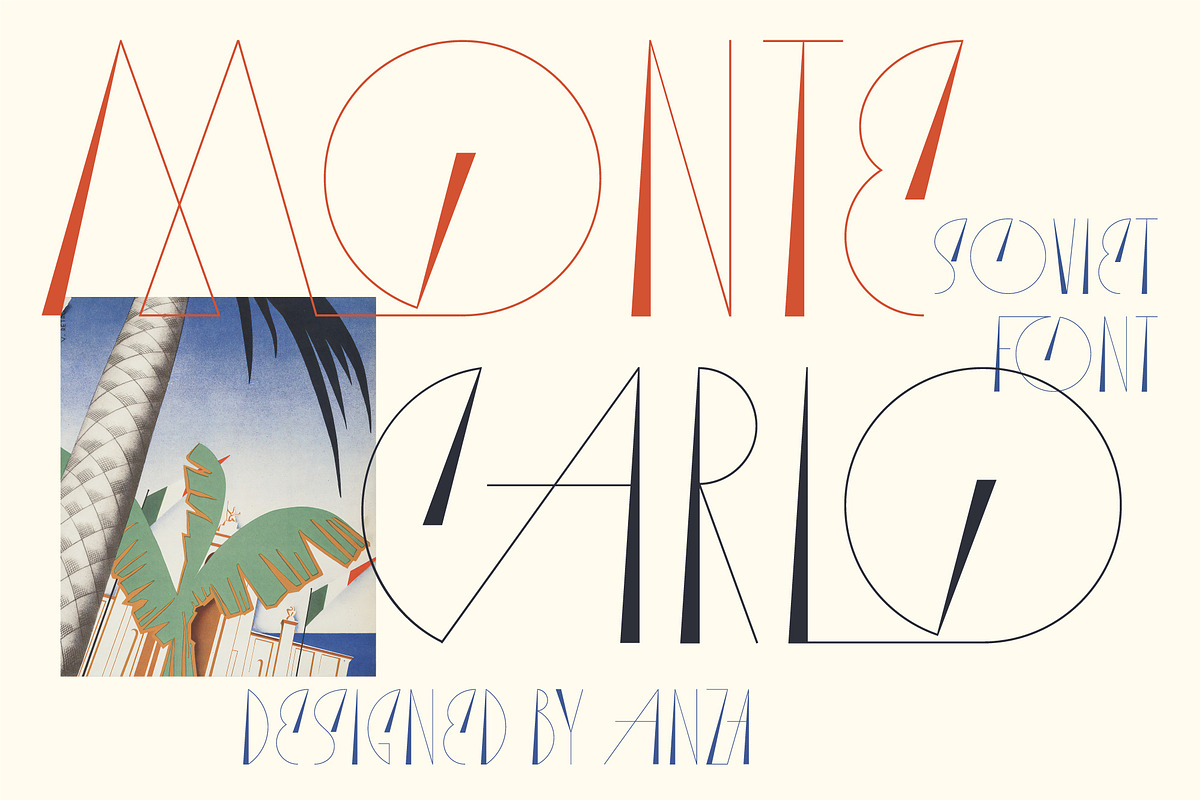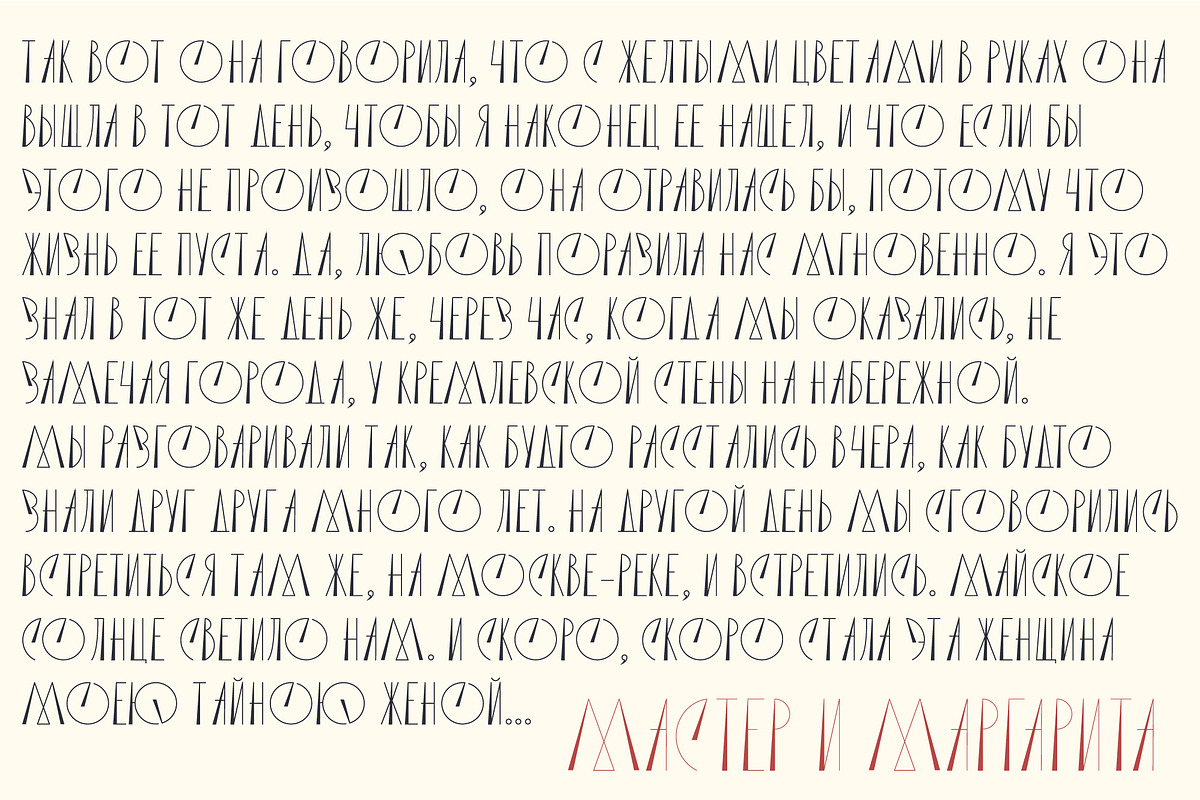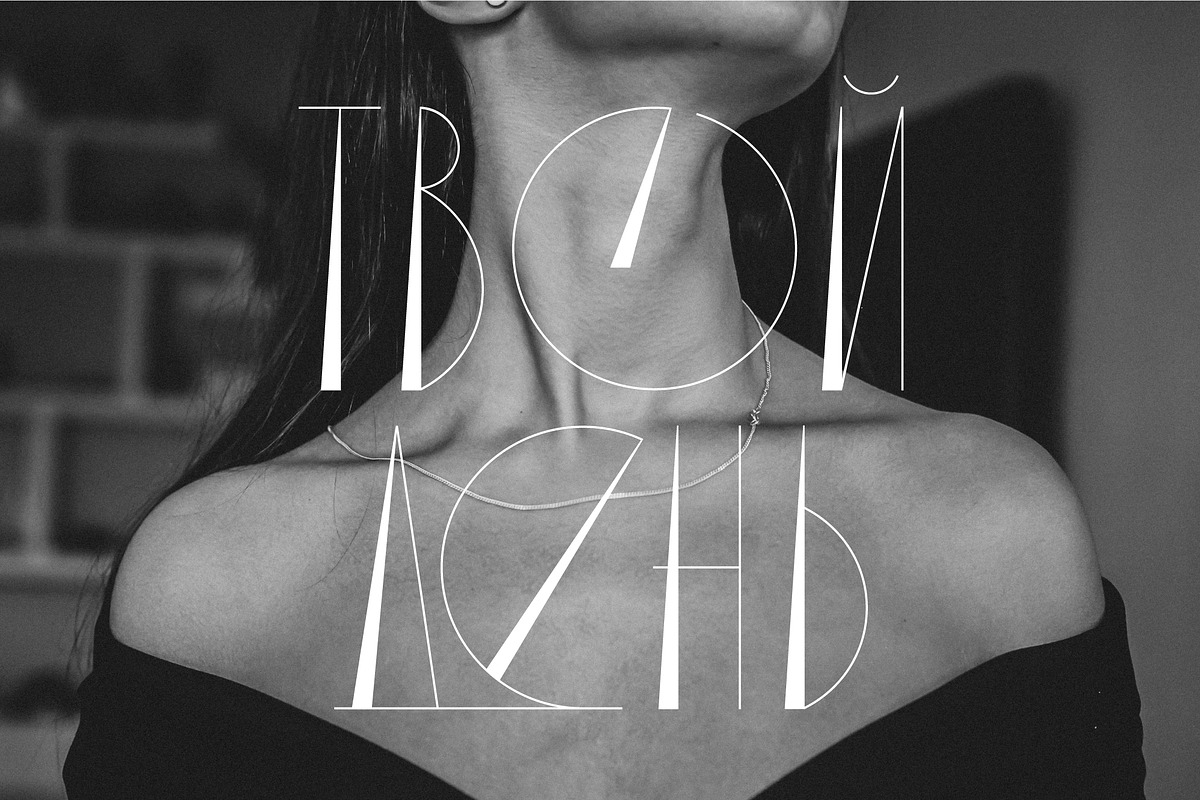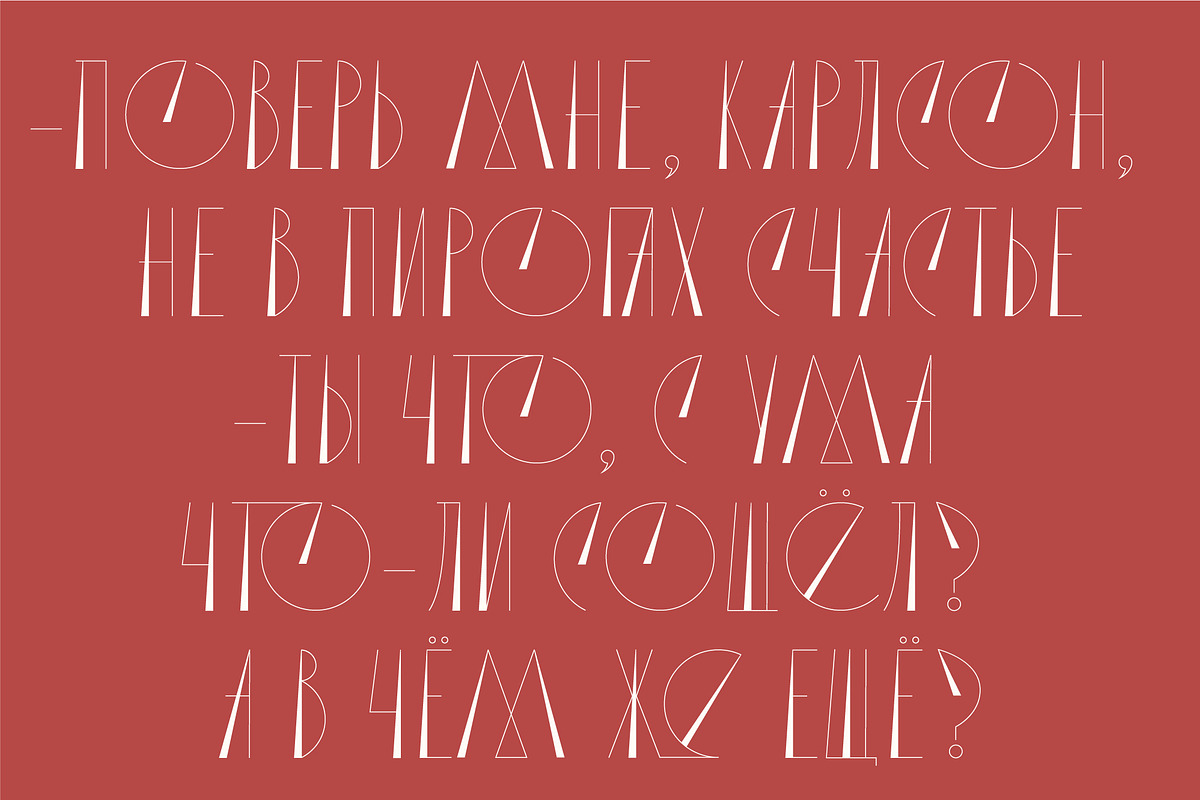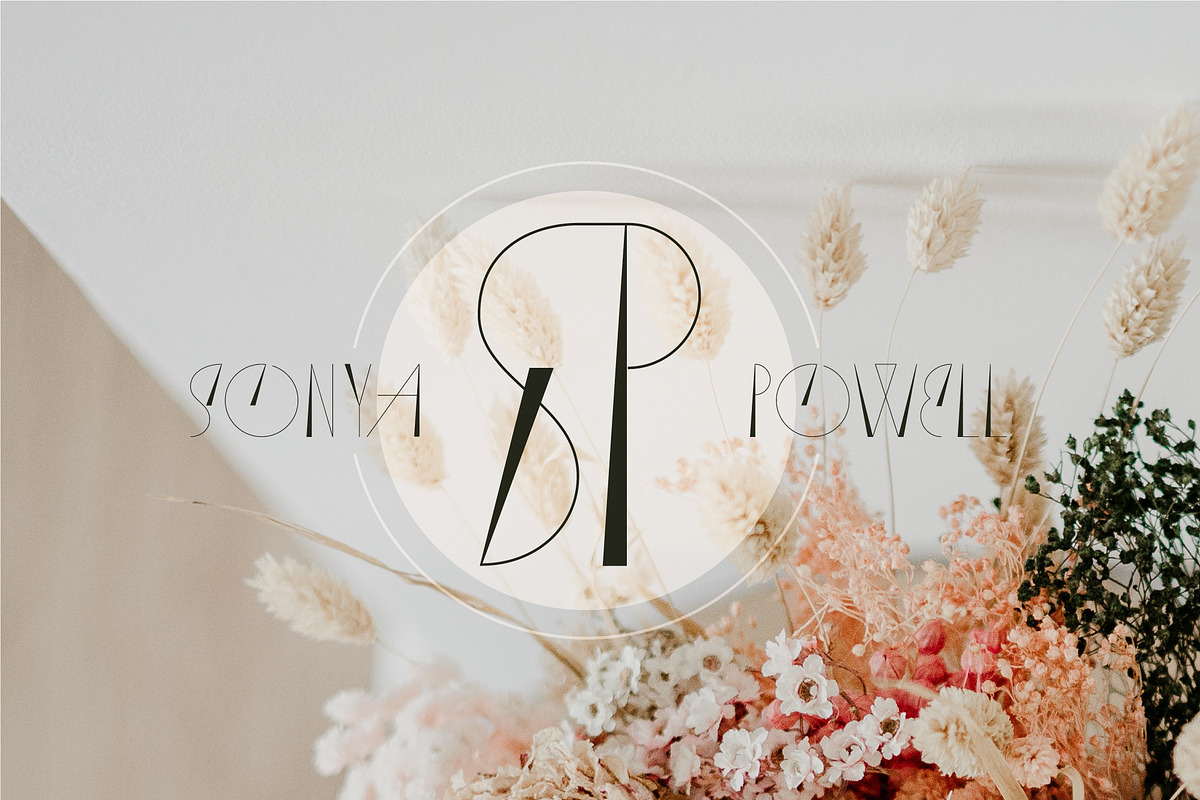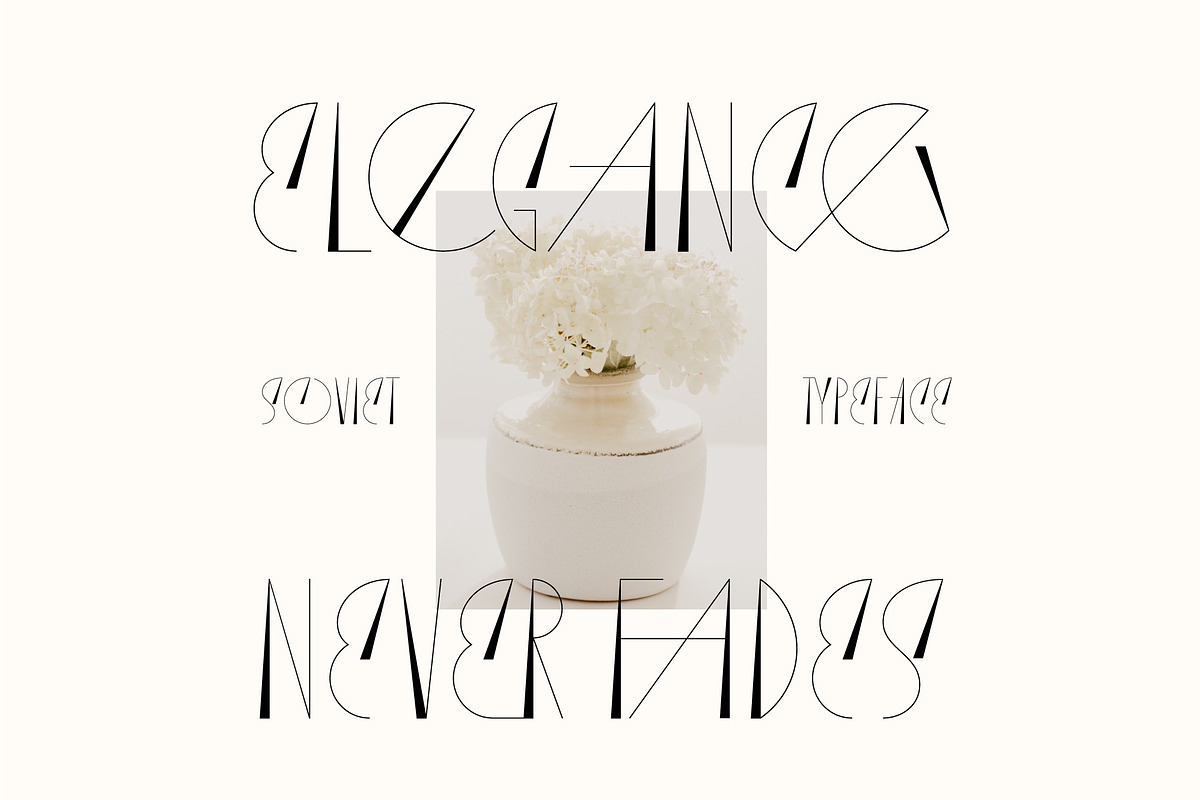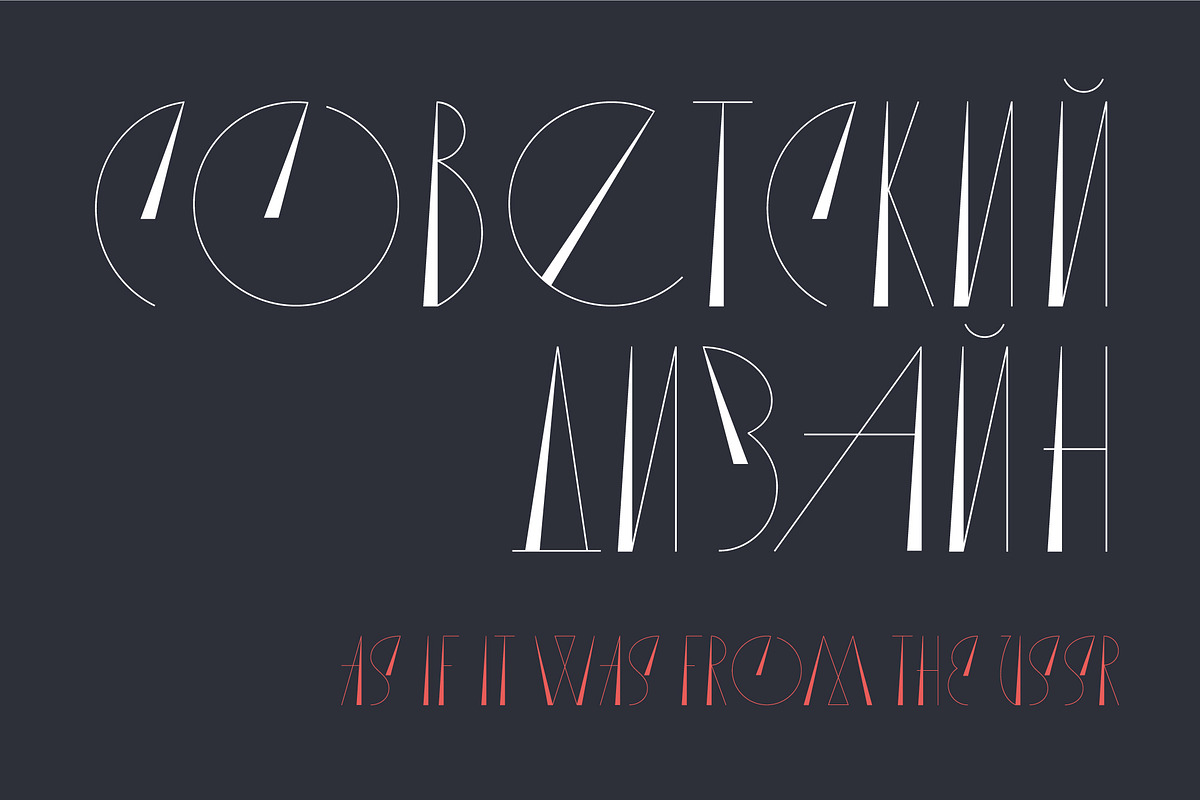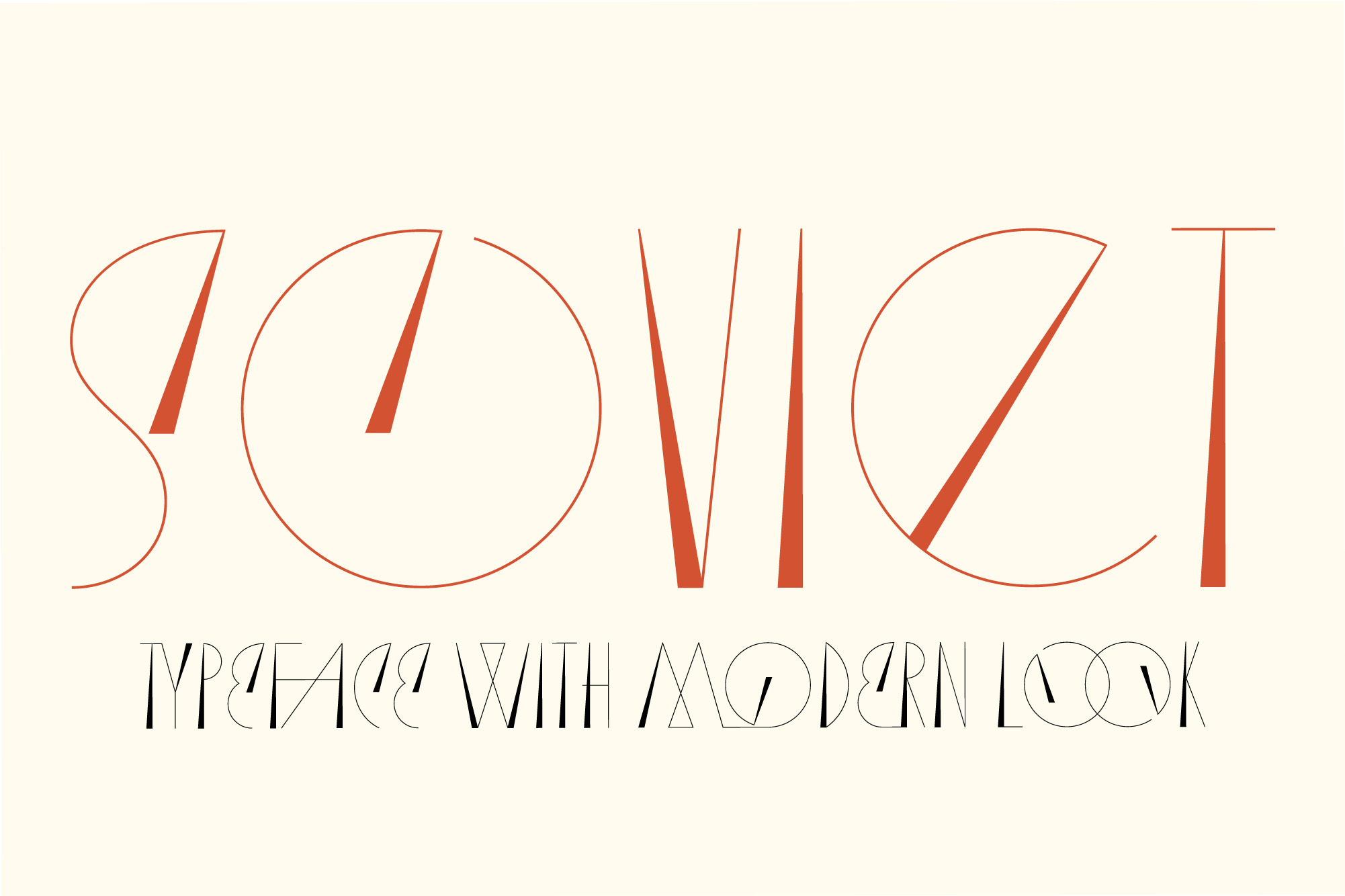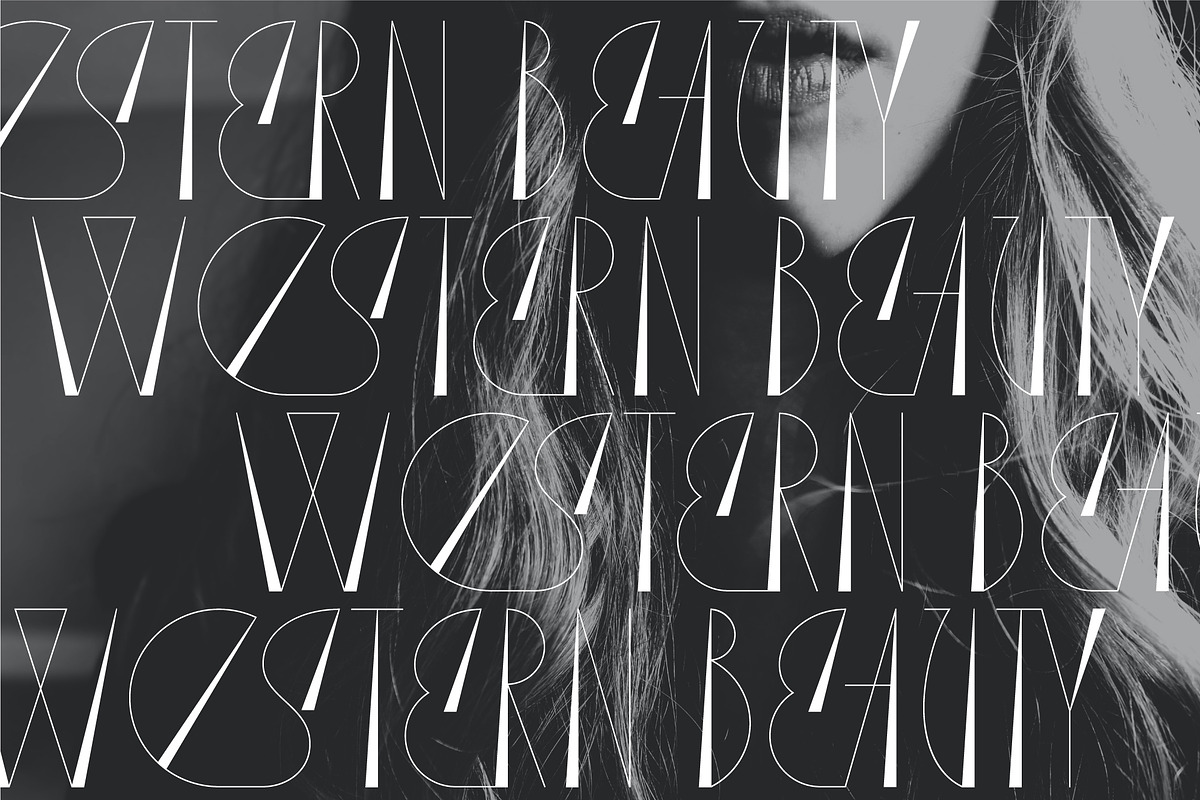
Soviet retro typeface
SOVIET is a new typeface designed with lots of ligatures. This font was created under Soviet times' inspiration.
It is perfect for designers looking to leave an impression. SOVIET is simple but significant. It is perfect for headings, flyers, greeting cards, product packaging, book cover, printed quotes, logotype, apparel design, album covers, etc.
SOVIET contains a large range of ligatures (unique double-letter pairings) to provide you with more customisation options. Access your OpenType features to access the large selection of ligatures to get luxurious typography. All ligatures can also be accessed via a Glyphs panel.
SOVIET has uppercase characters, lots of ligatures, numbers and punctuations, multilingual support (French, German, Italian, Norwegian, Portuguese, Spanish, Swedish, Swiss German). It also has Cyrillic glyphs.